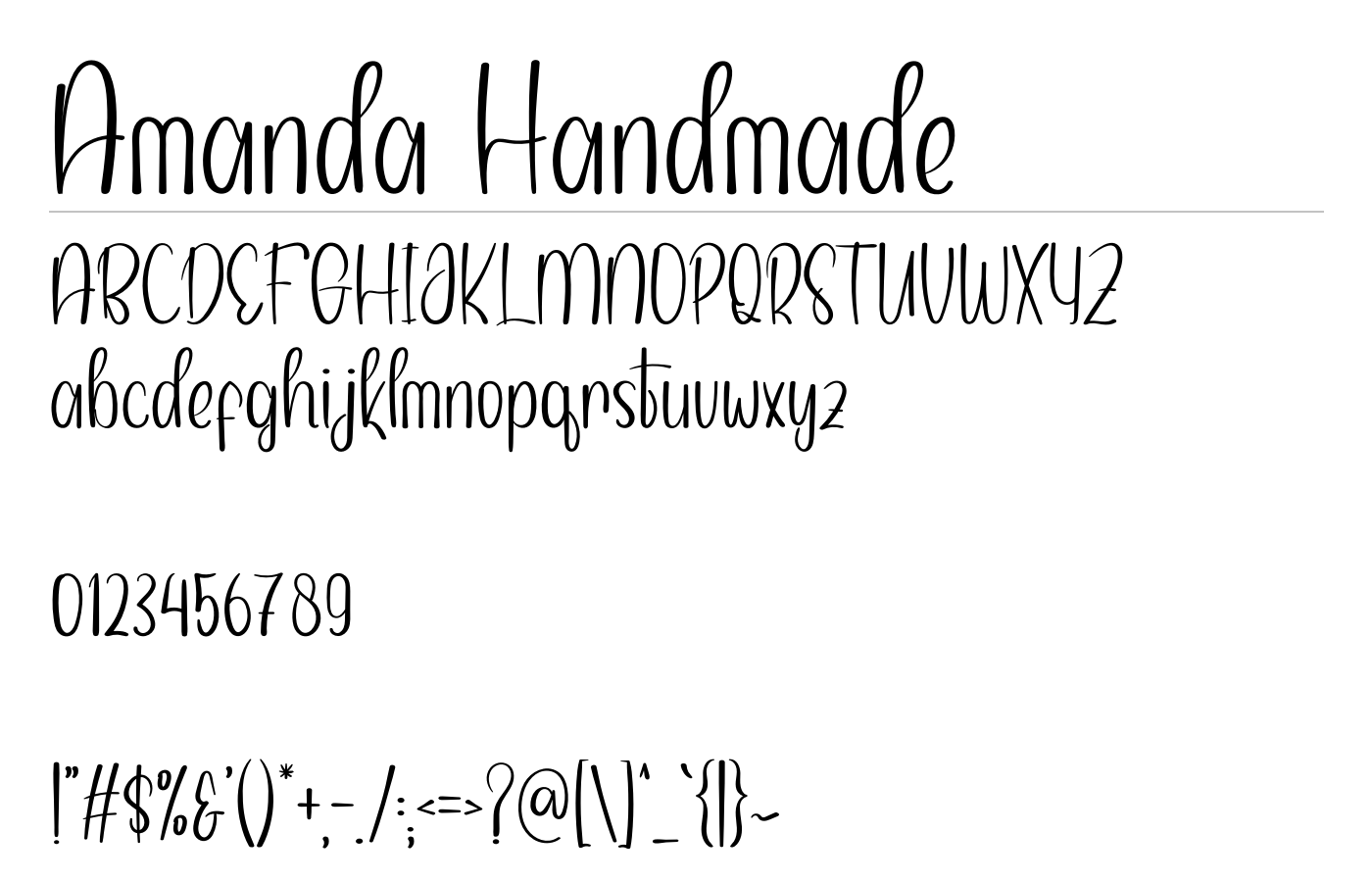
Amanda Handmade is a slender, playful handwritten sans serif font with tall, narrow letterforms and a casual yet refined character. Its slightly irregular strokes and unique letter shapes give it a friendly, personal feel, making it perfect for creative projects, branding, and invitations where a warm, approachable style is desired. This font works well in headlines and logos that aim to convey charm and individuality without sacrificing readability.
Amanda Handmade Font